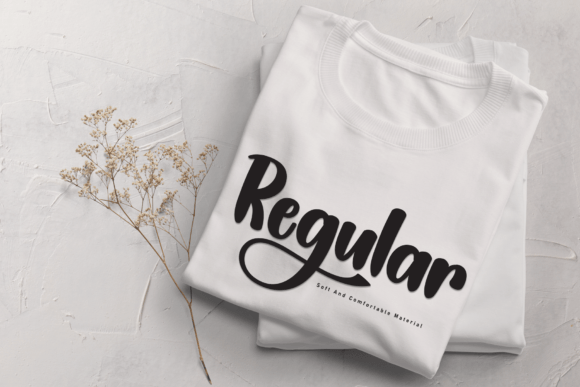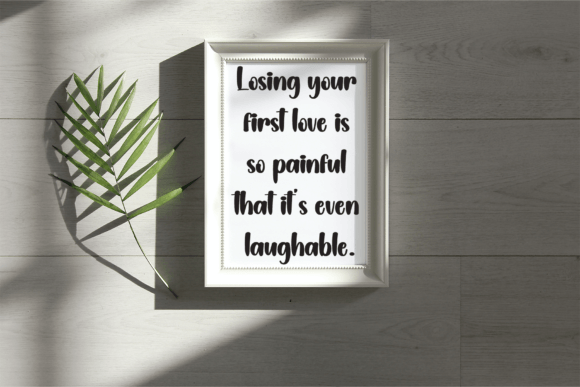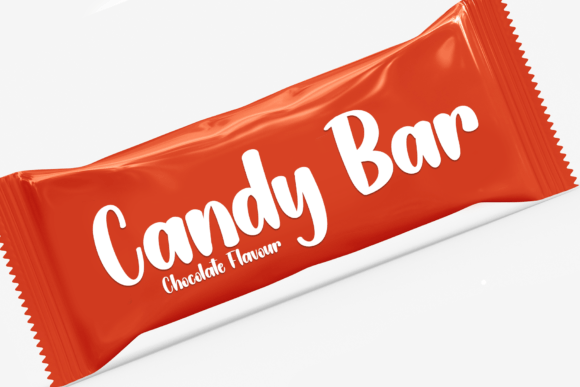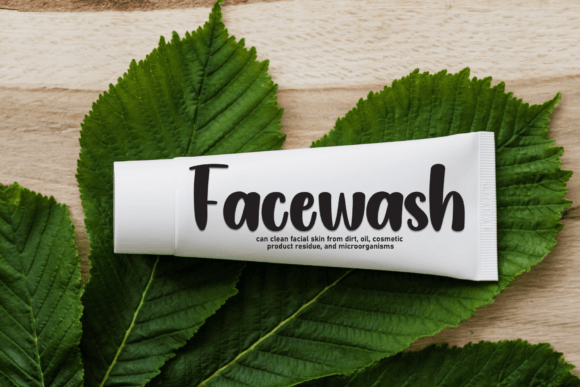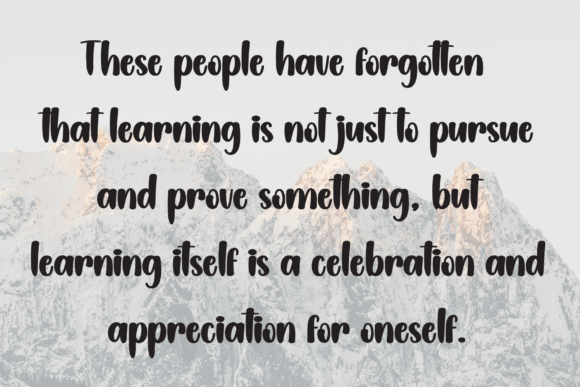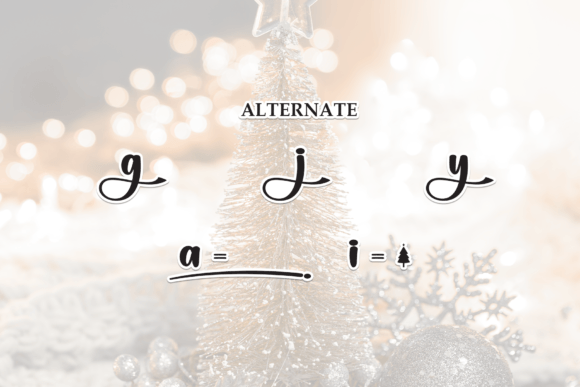
Introducing Christmas Light Font: A Sweet and Friendly Handwritten Delight
Are you looking for a font that captures the essence of the holiday season? Look no further than Christmas Light Font, a sweet and friendly handwritten font that’s perfect for a wide range of designs. With its natural and unique style, Christmas Light Font is incredibly versatile and can be used for everything from festive holiday cards to fun and playful craft projects.
As a designer or crafter, you’re always on the lookout for fonts that can help you create unique and eye-catching projects. Christmas Light Font is a fantastic addition to your font collection, with its distinctive handwritten style that’s both elegant and approachable. Whether you’re creating holiday decorations, gift tags, or social media graphics, Christmas Light Font is sure to add a touch of festive flair to your designs.
What Makes Christmas Light Font So Special?
So what sets Christmas Light Font apart from other fonts? Here are just a few things that make it so special:
- Handwritten style: Christmas Light Font has a beautiful, handwritten style that’s full of personality and charm.
- Natural and unique: The font’s natural and unique style makes it incredibly fitting for a wide range of designs, from traditional holiday graphics to more modern and playful projects.
- Versatile: Christmas Light Font can be used for everything from holiday cards and gift tags to social media graphics and blog posts.
- Easy to read: Despite its playful style, Christmas Light Font is easy to read, making it perfect for use in body text or headlines.
Ideas for Using Christmas Light Font
So now that you’ve got Christmas Light Font, what can you do with it? Here are a few ideas to get you started:
- Holiday cards and invitations: Use Christmas Light Font to create beautiful and festive holiday cards and invitations that are sure to impress your friends and family.
- Gift tags and wrapping paper: Add a personal touch to your gifts with Christmas Light Font, perfect for creating custom gift tags and wrapping paper.
- Social media graphics: Use Christmas Light Font to create fun and festive social media graphics, perfect for sharing on Instagram, Facebook, and more.
- Craft projects: Christmas Light Font is perfect for a wide range of craft projects, from scrapbooking and journaling to card making and DIY decorations.
Tips for Getting the Most Out of Christmas Light Font
Here are a few tips for getting the most out of Christmas Light Font:
- Experiment with different colors: Christmas Light Font looks great in a wide range of colors, so don’t be afraid to experiment and find the perfect hue for your project.
- Mix and match with other fonts: Christmas Light Font pairs well with a wide range of other fonts, so feel free to get creative and mix and match to find the perfect combination.
- Use it for headlines and body text: Christmas Light Font is easy to read, making it perfect for use in both headlines and body text.